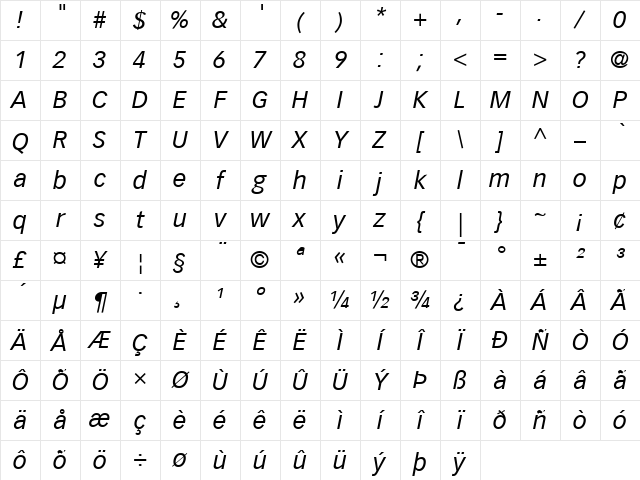
Vectora LH Italic
Complete Vectora LH Italic glyph index. Displaying only characters natively supported by Vectora LH Italic font.
Design Context for Vectora LH
Vectora LH is a composed and adaptable typeface that performs quietly and consistently across a wide range of design contexts. The slanted form adds forward momentum and visual energy.
Pro Tip: Use Vectora LH for emphasis, pull quotes, and subheadings where its slanted energy can add rhythm to the layout.